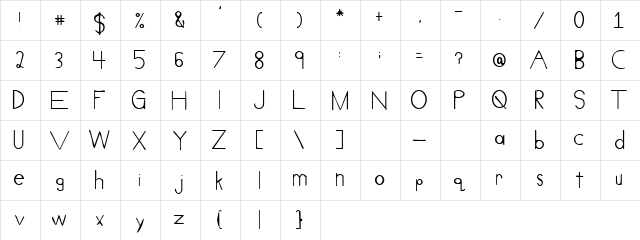
Cueue Cheesy
Design Context for Cueue Typeface
Cueue offers clean, dependable letterforms without strong stylistic allegiance, making it a practical choice for designers who need flexibility.